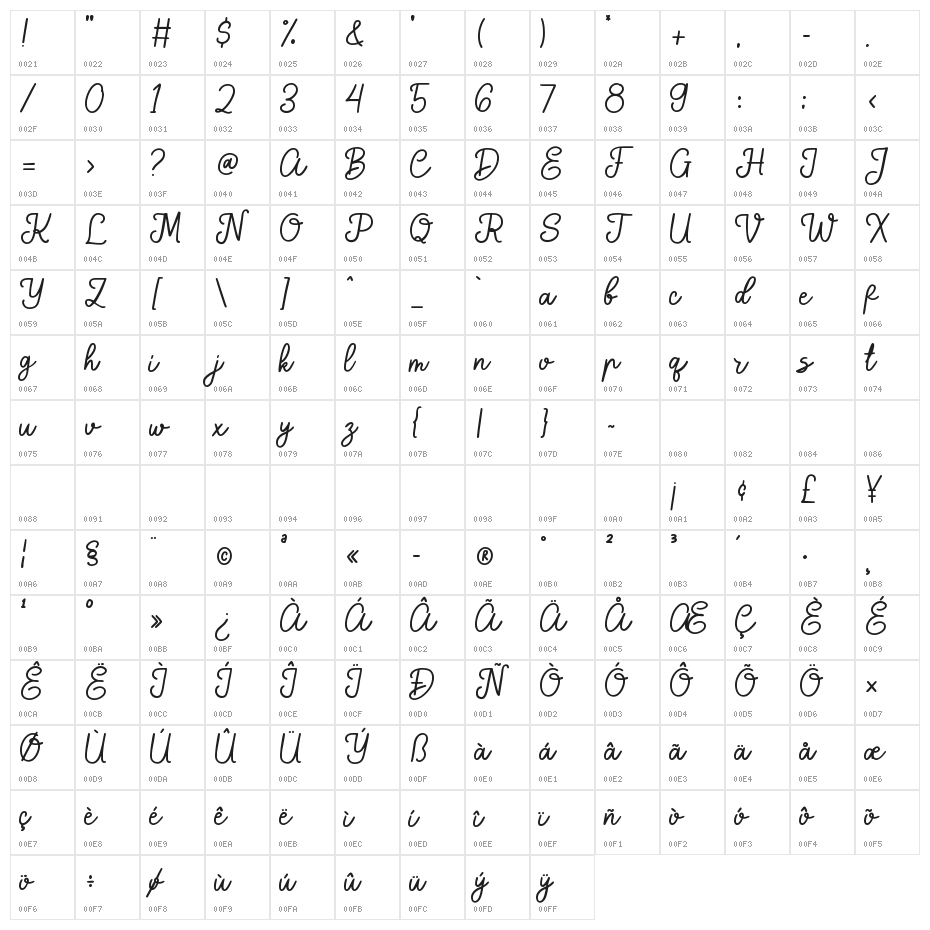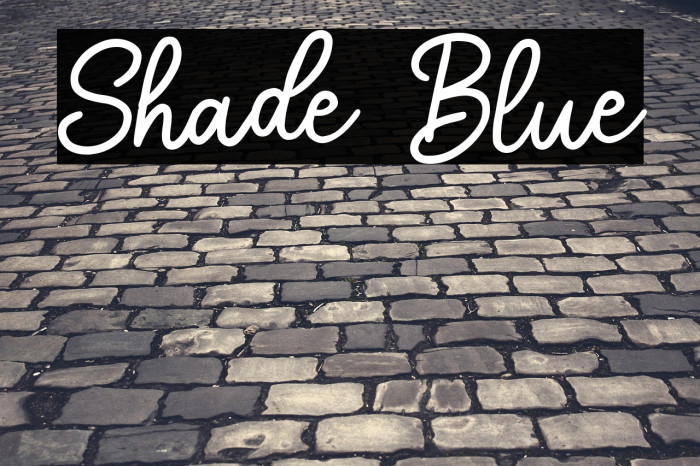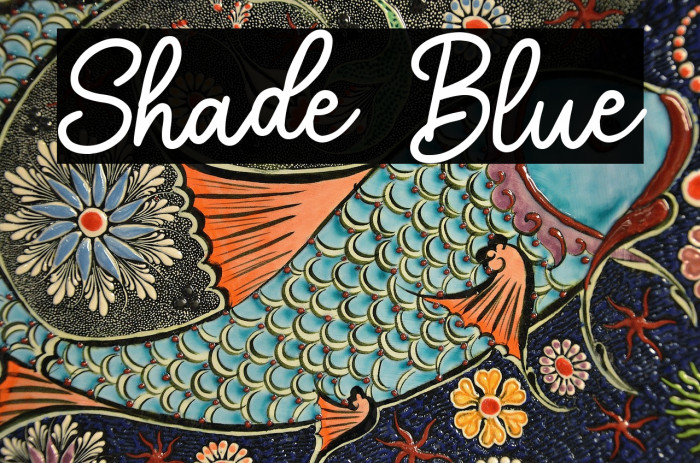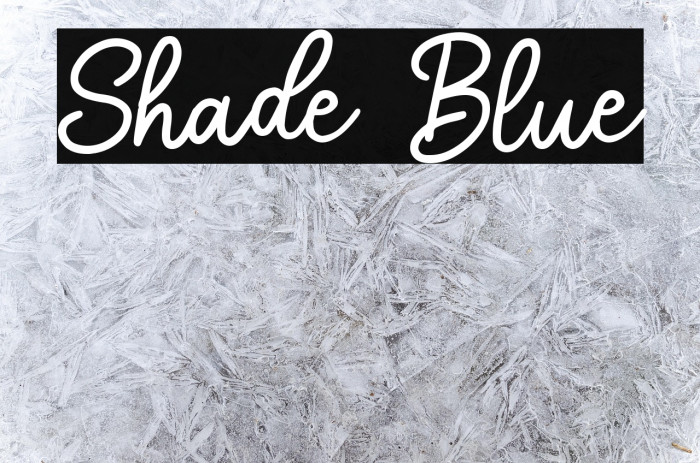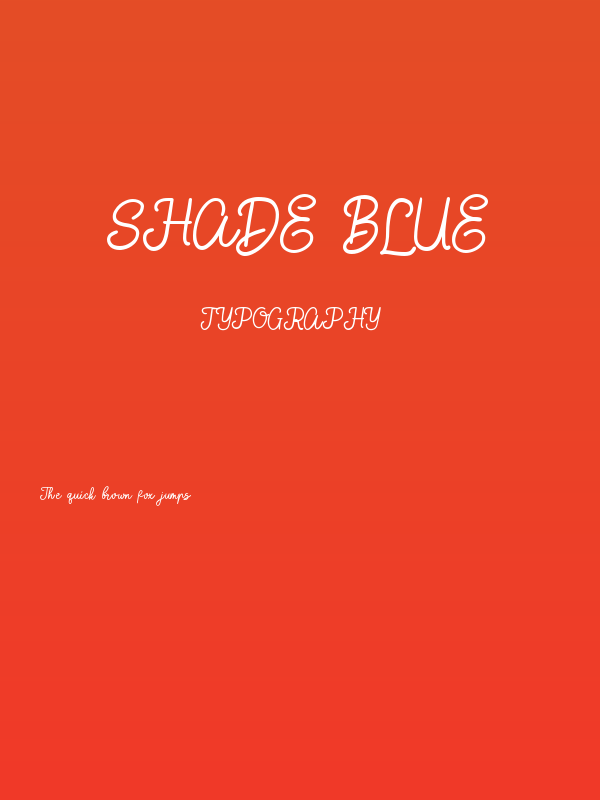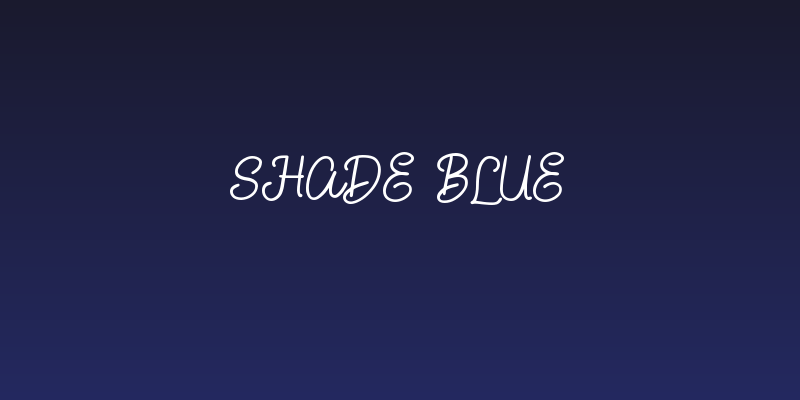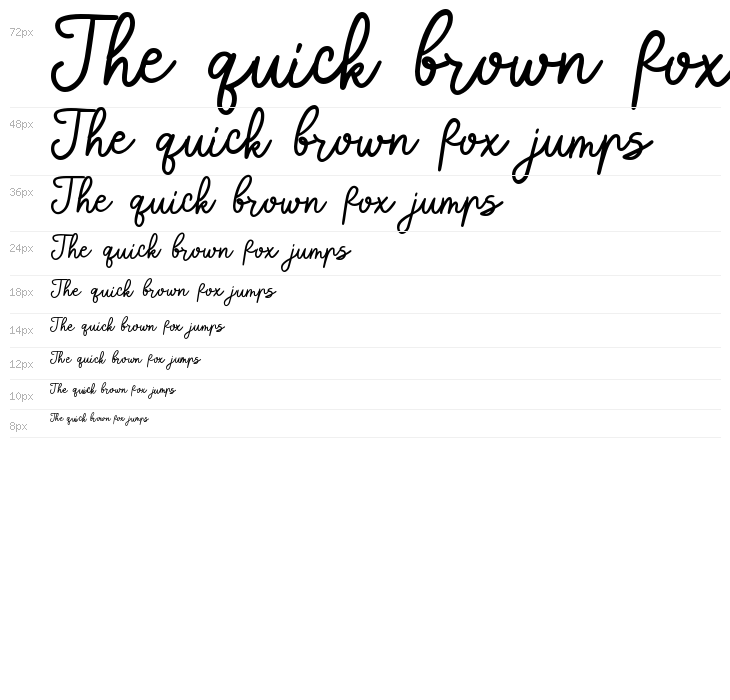
Shade Blue Font
Shade Blue Description
This font features a playful and elegant script style with smooth, flowing lines and a handwritten appearance. The characters are connected, giving it a cohesive and fluid look. The uppercase letters are slightly larger and more prominent, while the lowercase letters maintain a consistent height, enhancing readability. The numerals and special characters are designed to match the overall style, ensuring a harmonious appearance across all text. The font's curves and loops add a touch of sophistication, making it suitable for various creative applications.
| Use Case | Logos, Invitations, Social Media |
| Proposed Projects | Ideal for wedding invitations, greeting cards, branding, and social media graphics. |